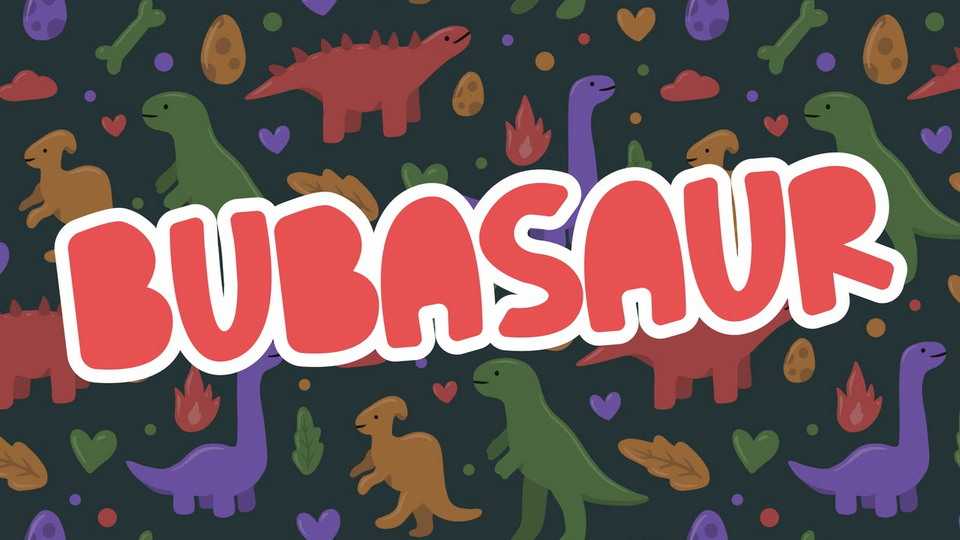
Download Bubasaur font, a playful kids typeface. Happiness and joy are what children world. And Bubasaur is all about that. It brings a smile all over the place.